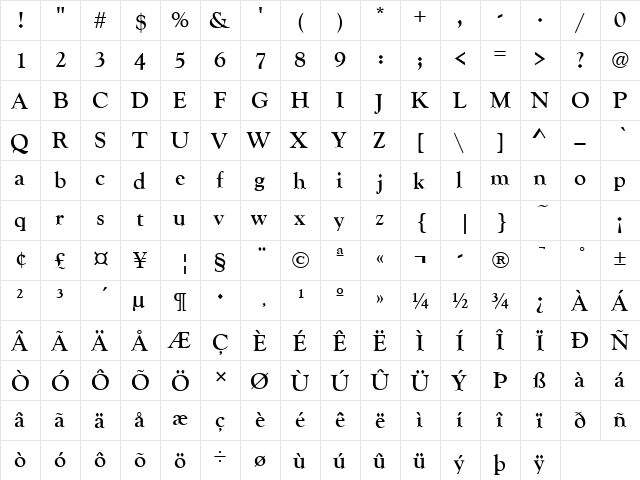
GoudyOldStyle Bold
Design Context for GoudyOldStyle Typeface
GoudyOldStyle carries the refined structure of traditional serif typography, with bracketed terminals and considered proportions that communicate credibility and craft. The heavy weight commands attention and anchors typographic hierarchies.
Pro Tip: Set GoudyOldStyle with slightly loose tracking in headlines to let each letterform's detail read clearly at display sizes.